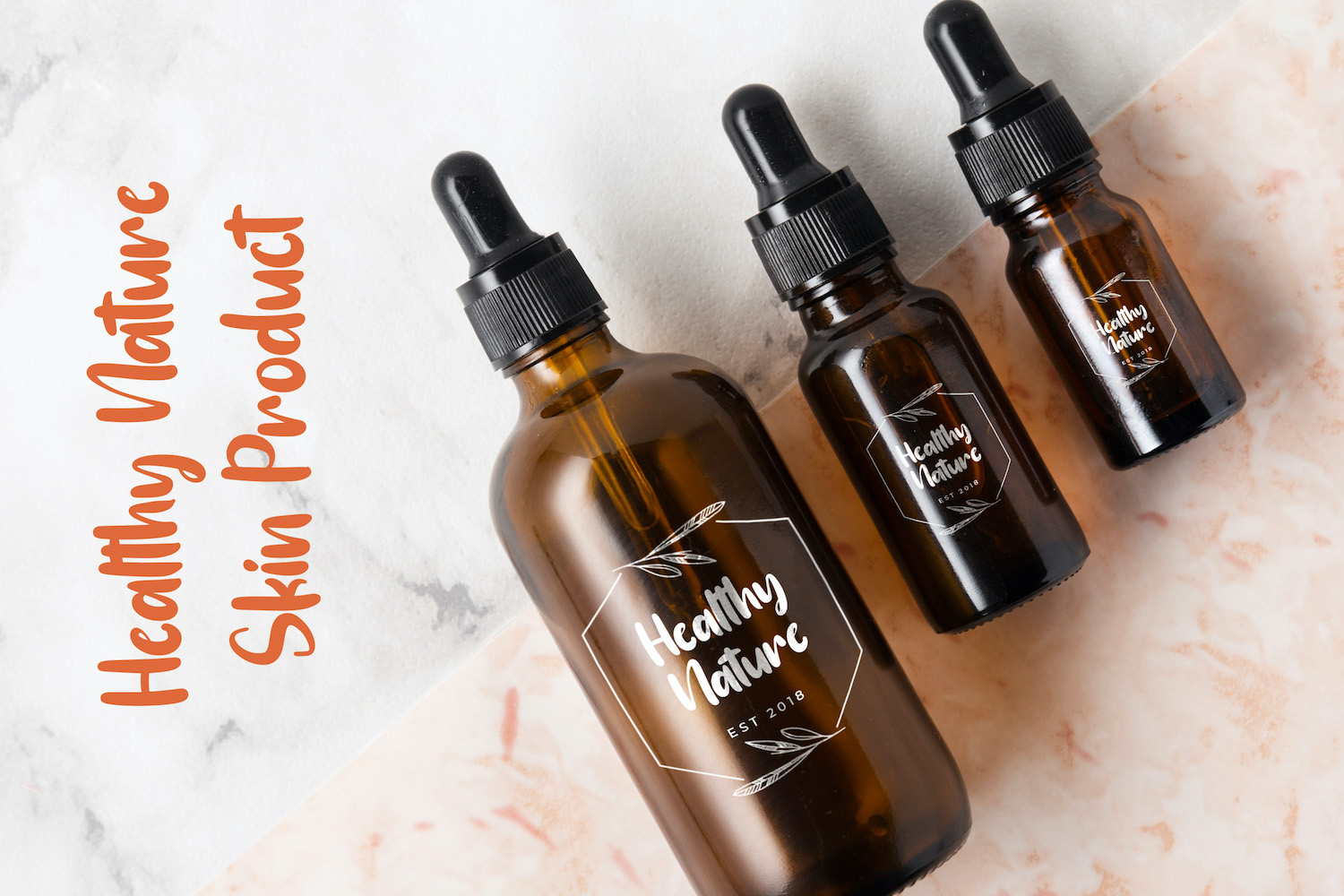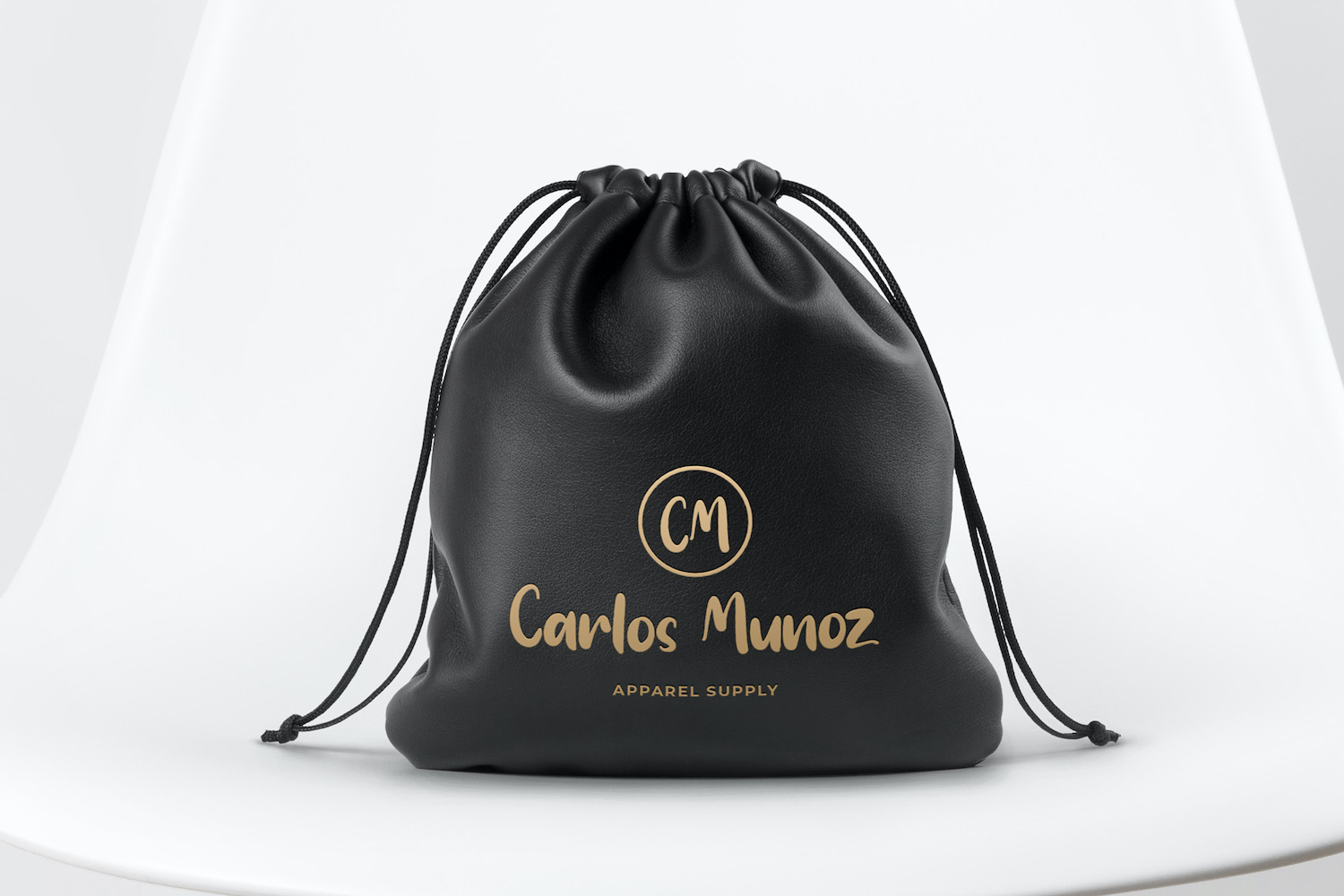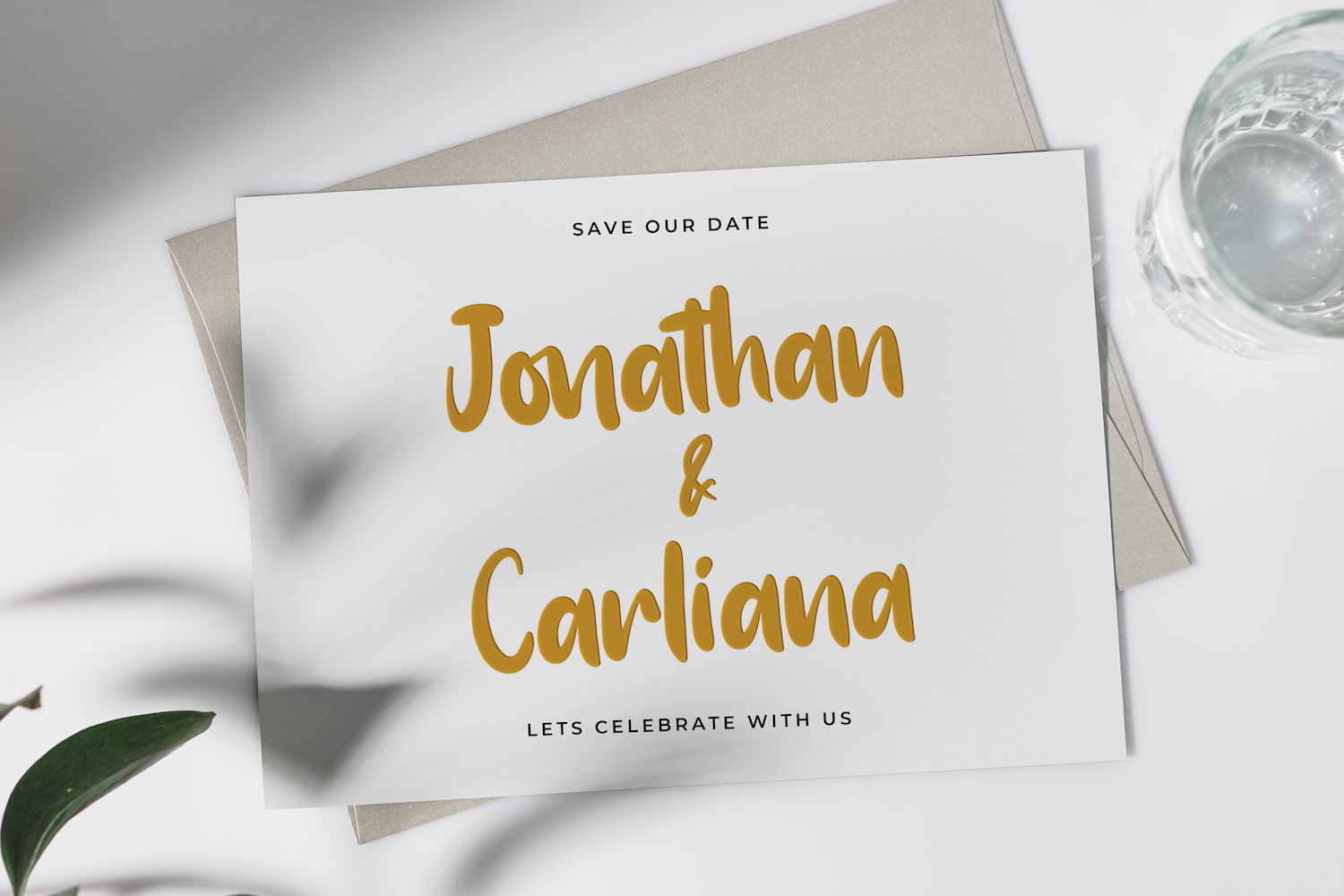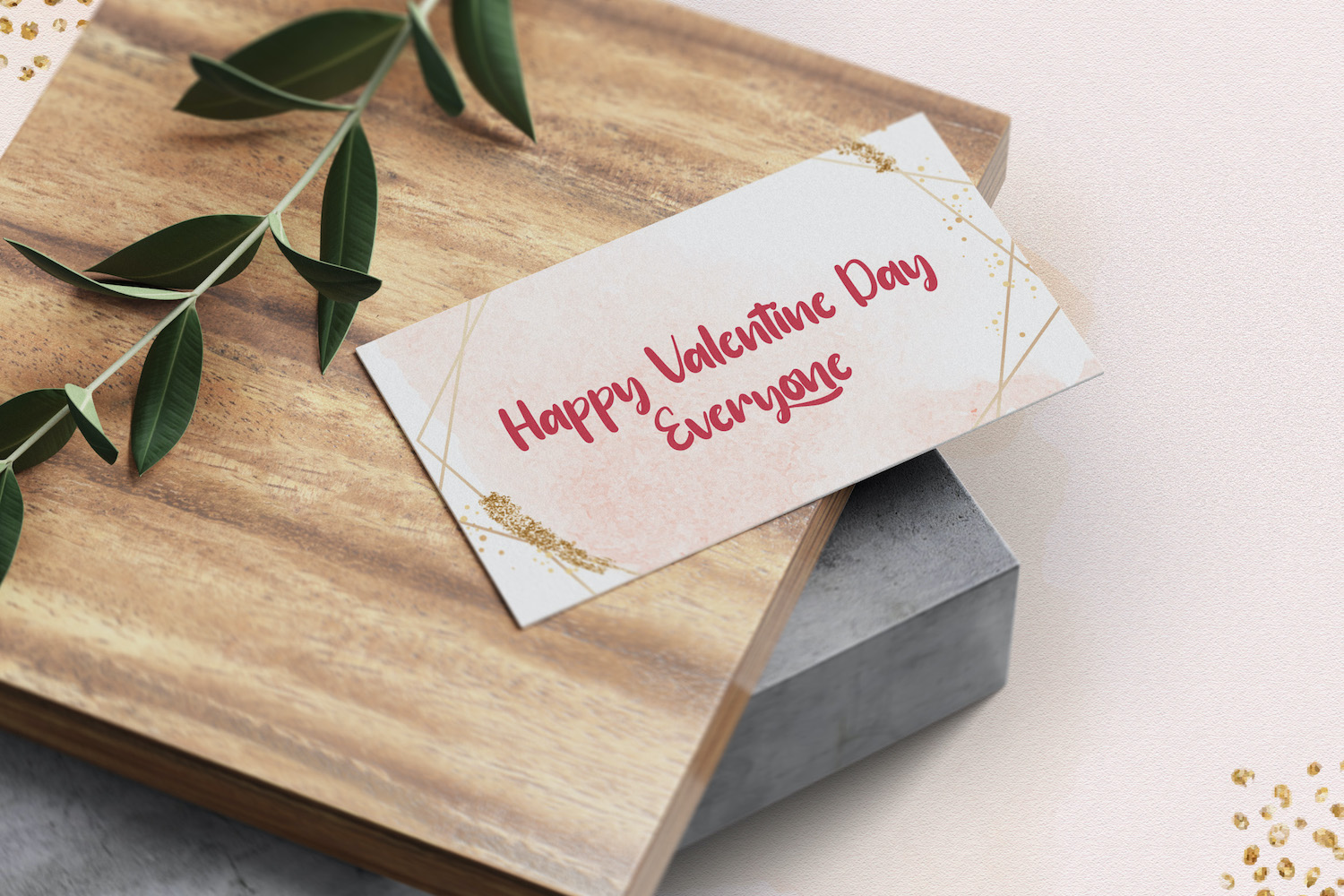
Choosing a handwritten font can be tricky: you want something that feels personal, but still reads cleanly and looks intentional. Sanju Vony answers that dilemma with a friendly script voice—rounded strokes, soft curves, and a slightly bouncy rhythm that instantly makes a layout feel warmer and more human.
Sanju Vony is a strong pick when you need a casual, approachable headline: brand names, product packaging, beauty and lifestyle labels, boutique logos, invitations, greeting cards, social posts, and short quotes. Its letterforms lean toward a smooth, marker-like handwritten feel—more polished than rough brush lettering, yet still relaxed enough to feel natural. The generous curves and open shapes help it stay readable on light or dark backgrounds, especially when used as a featured word or a short line.
It’s not recommended for long paragraphs, dense information, or small UI text. At tiny sizes, the rounded terminals and handwritten joins can lose clarity, and the personality can start to feel “too playful” for strict corporate, technical, or formal editorial contexts. If your project needs sharp precision, highly structured geometry, or a classic formal script look, Sanju Vony may feel off-tone—its charm is in being friendly, casual, and softly expressive rather than formal or authoritative.
In short: pick Sanju Vony when you want a handwritten identity that feels welcoming, modern, and easygoing—perfect for personal-forward branding and warm promotional visuals. Avoid it when legibility at small sizes or a strictly formal tone is the priority.